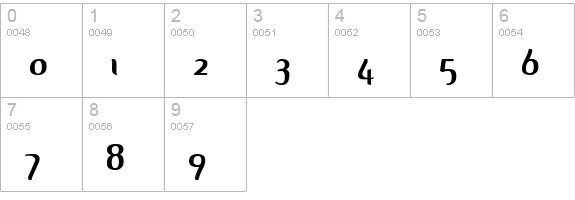
Albino Font Details
Albino font is a stunning and unique typeface that is sure to make your designs stand out. This elegant font features intricate details and a sophisticated style that is perfect for a wide range of projects. With its clean lines and classic look, Albino font exudes a sense of modernity and professionalism. The best part about Albino font is that it is completely free to use! You can easily download this exquisite font from FontsMarket.com and start using it in your designs right away. Whether you're working on a logo, branding materials, invitations, or any other creative project, Albino font will add a touch of elegance and charm. Don't miss out on the opportunity to enhance your designs with the beauty of Albino font. Download it for free today and take your projects to the next level!